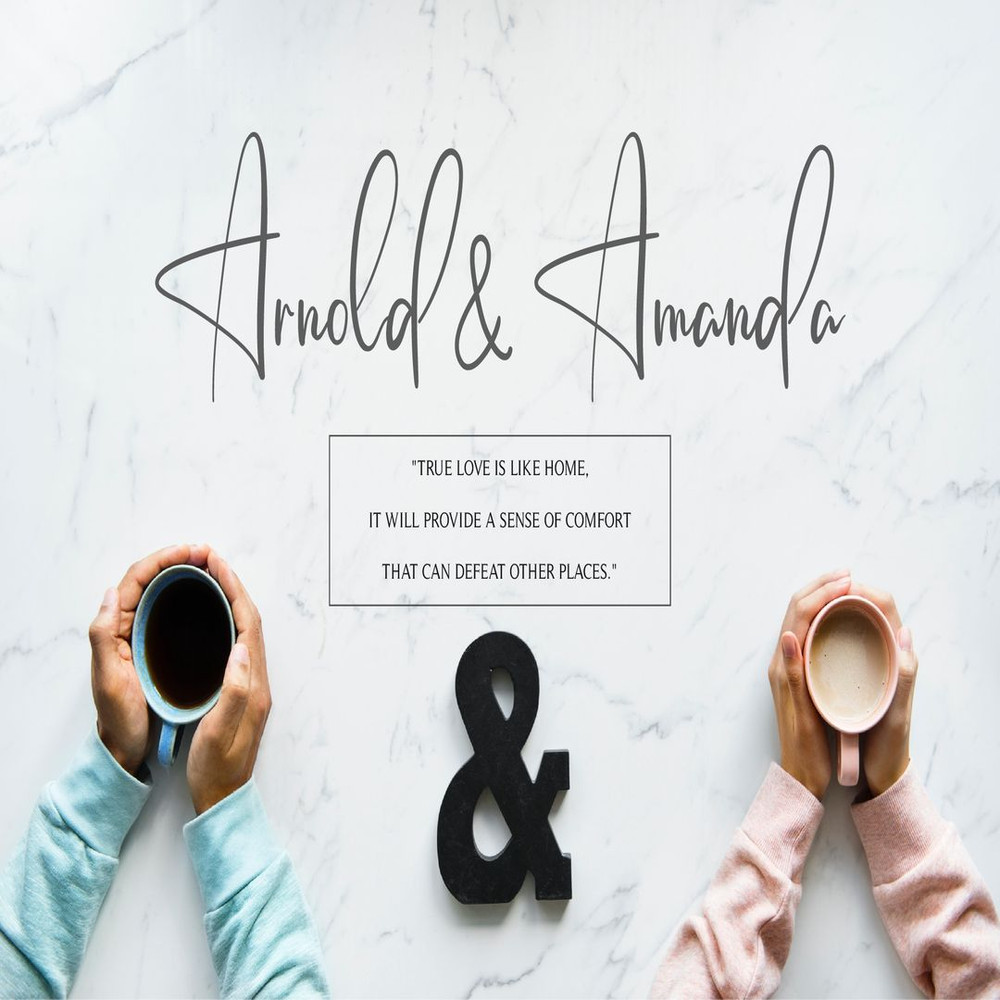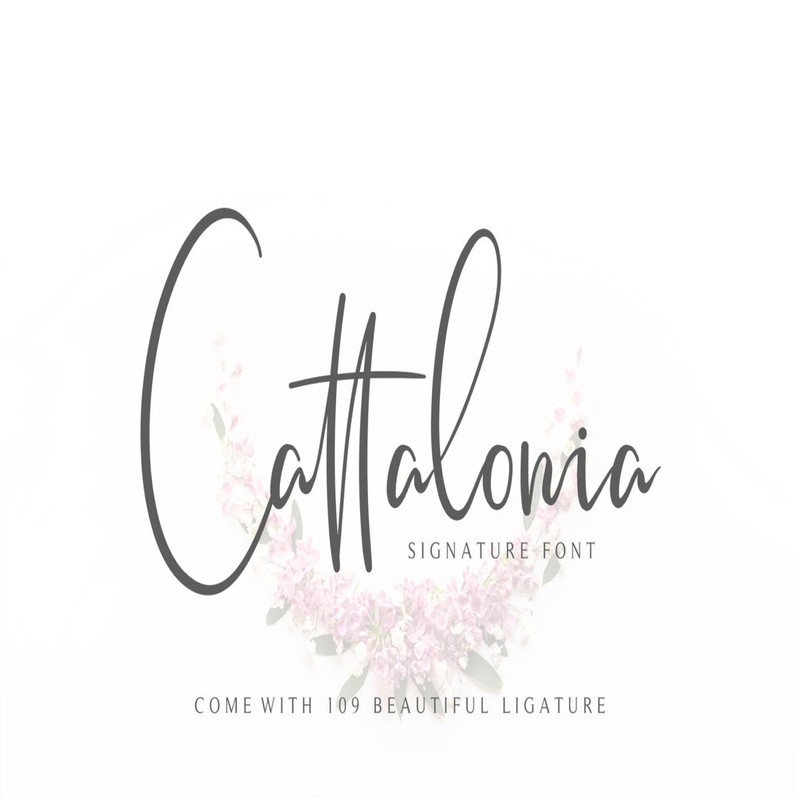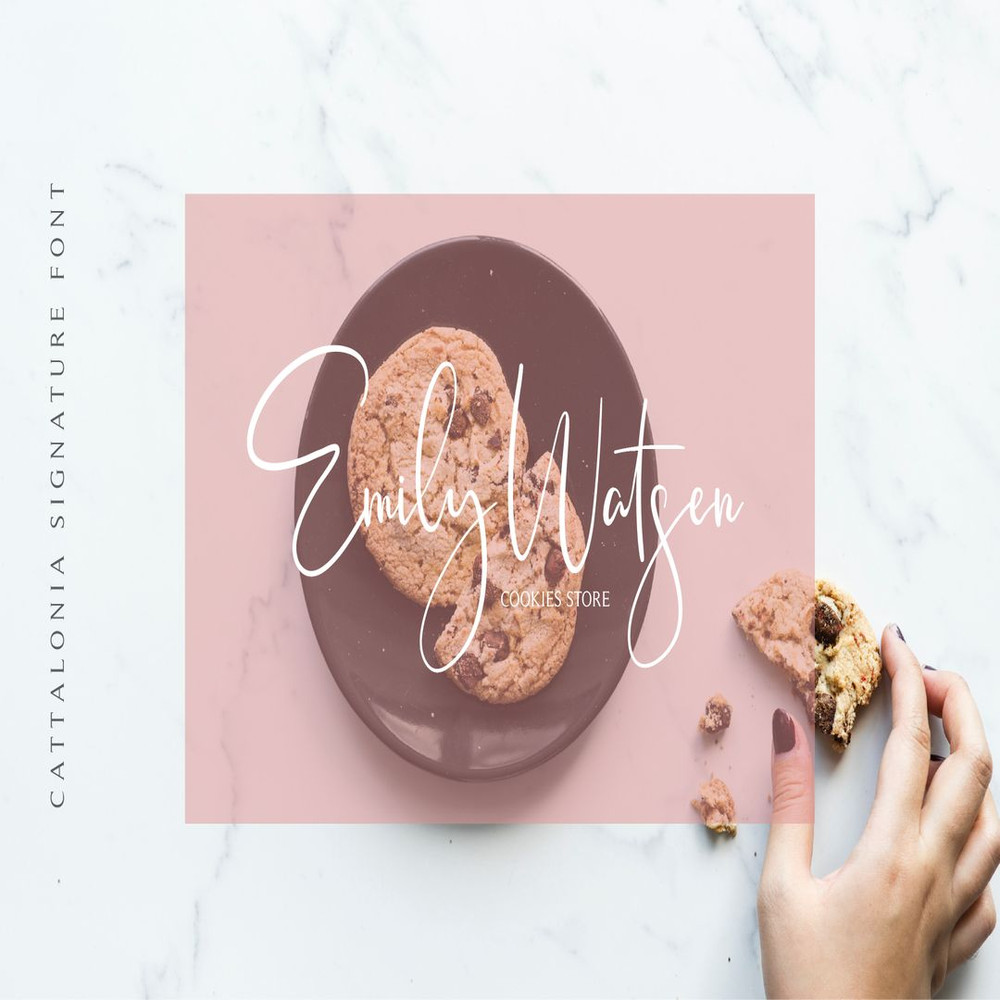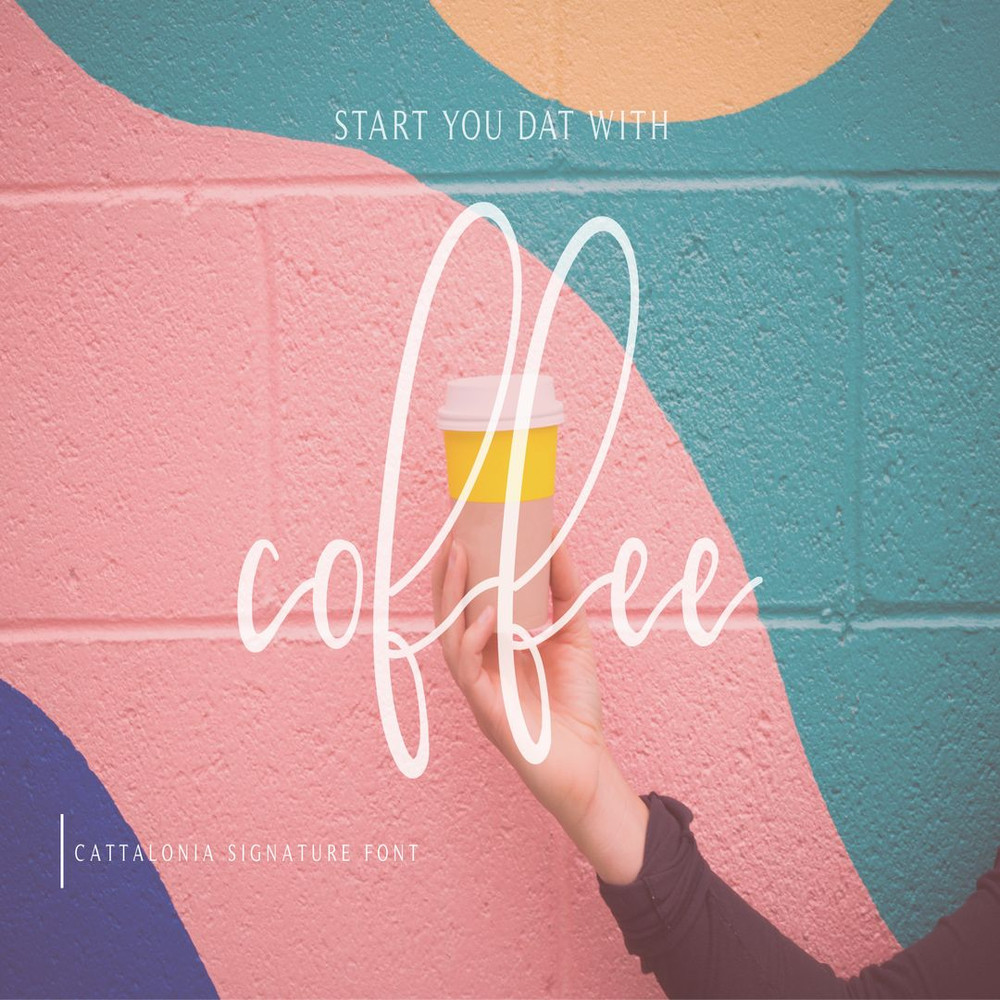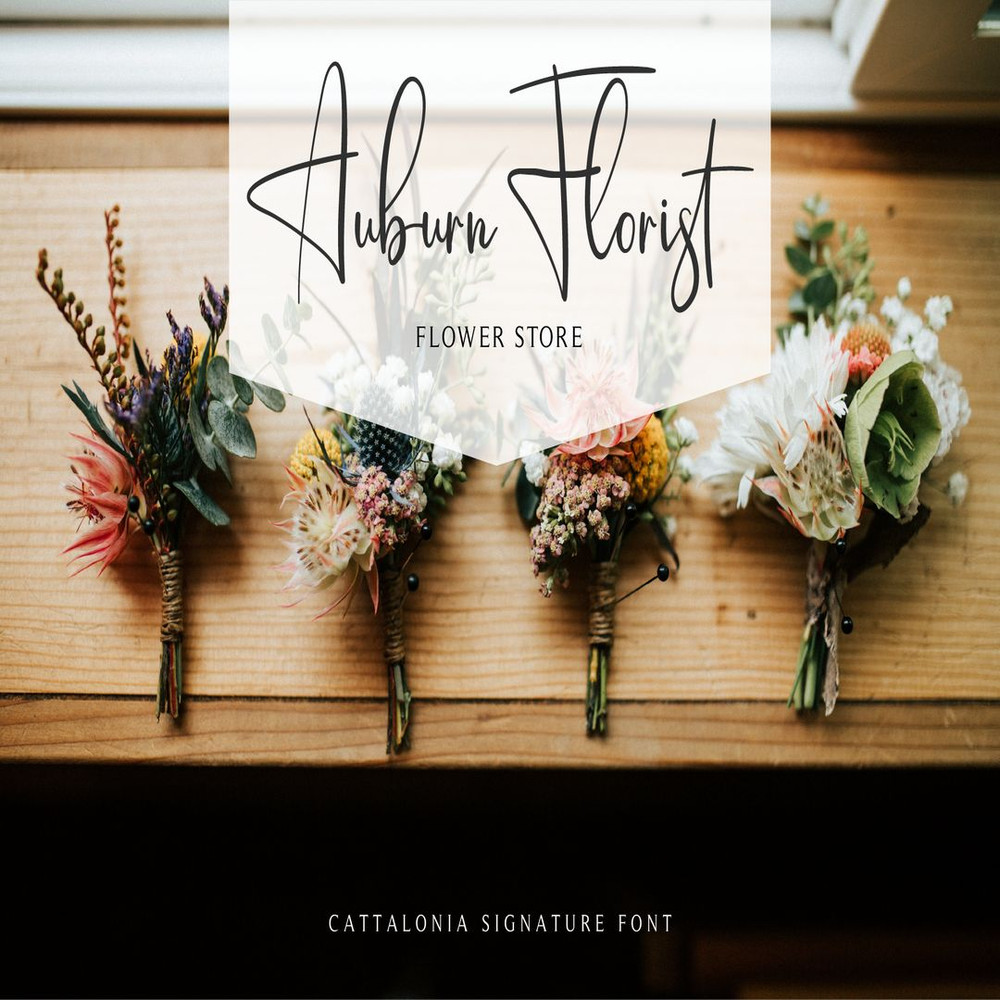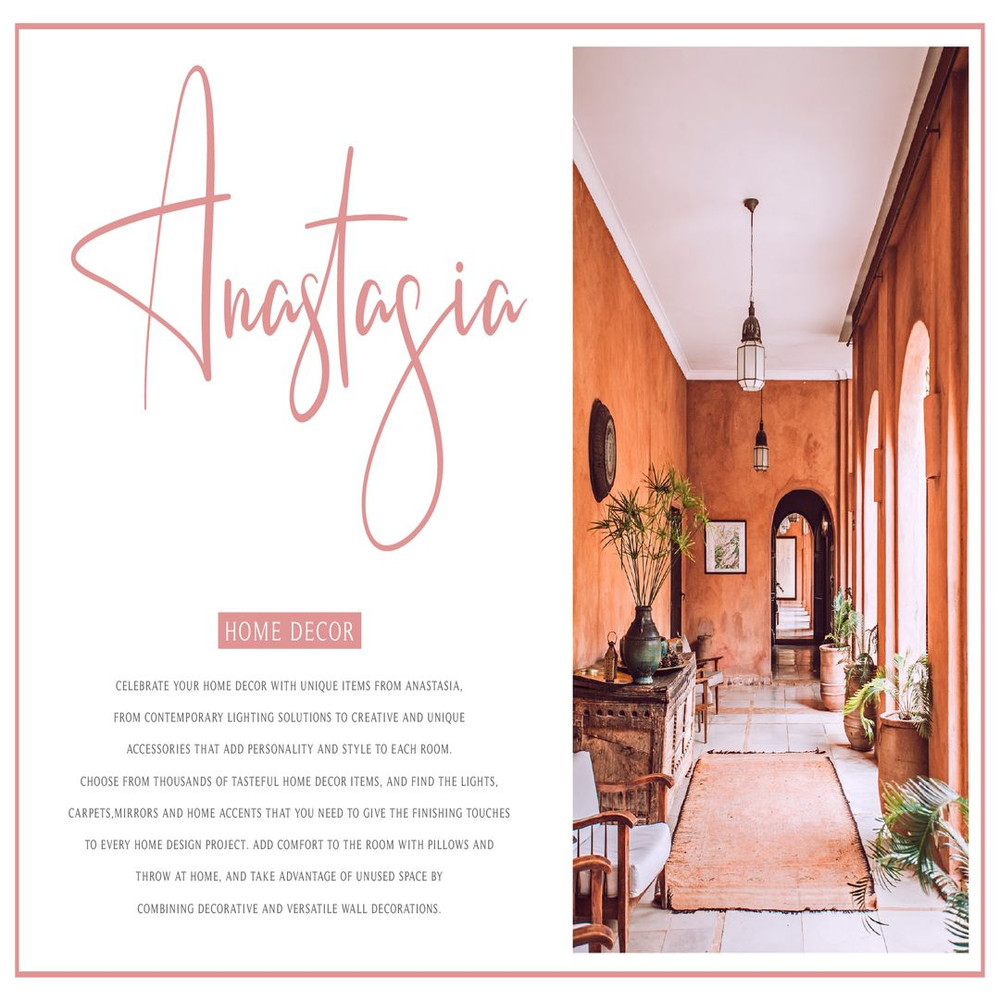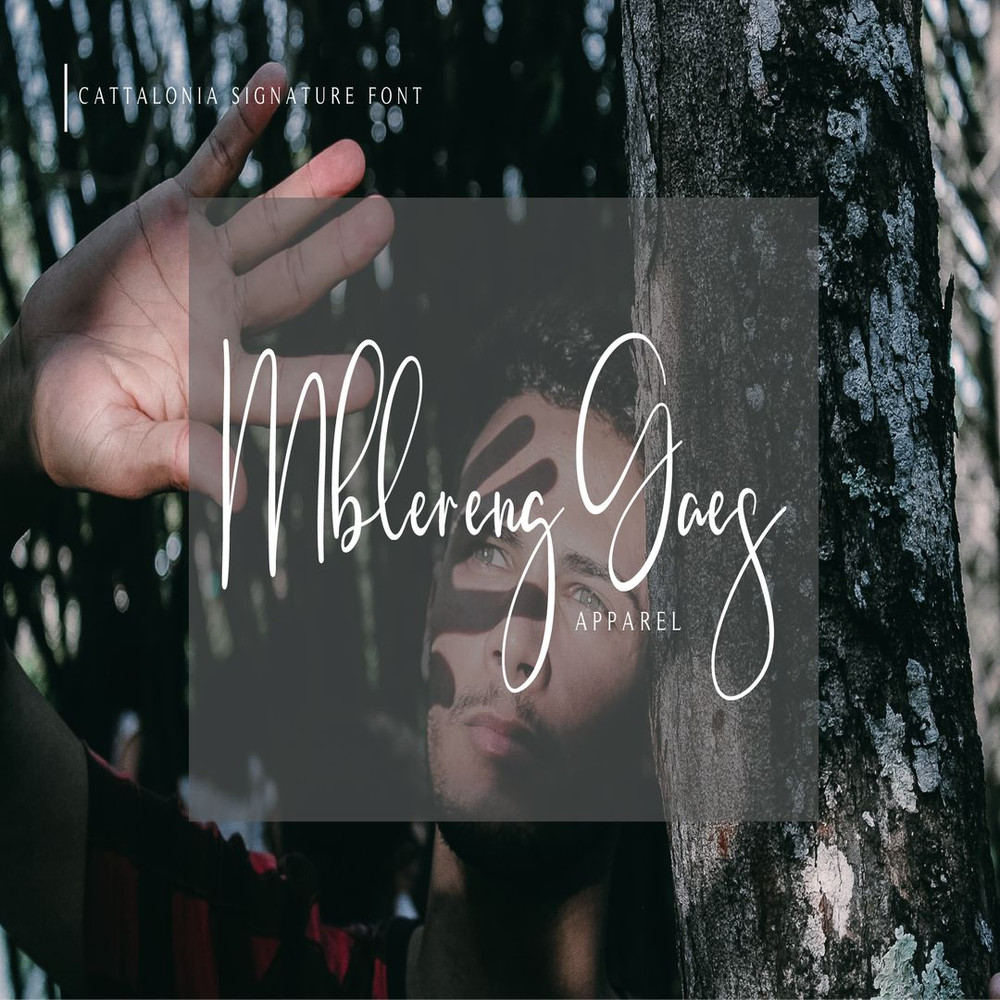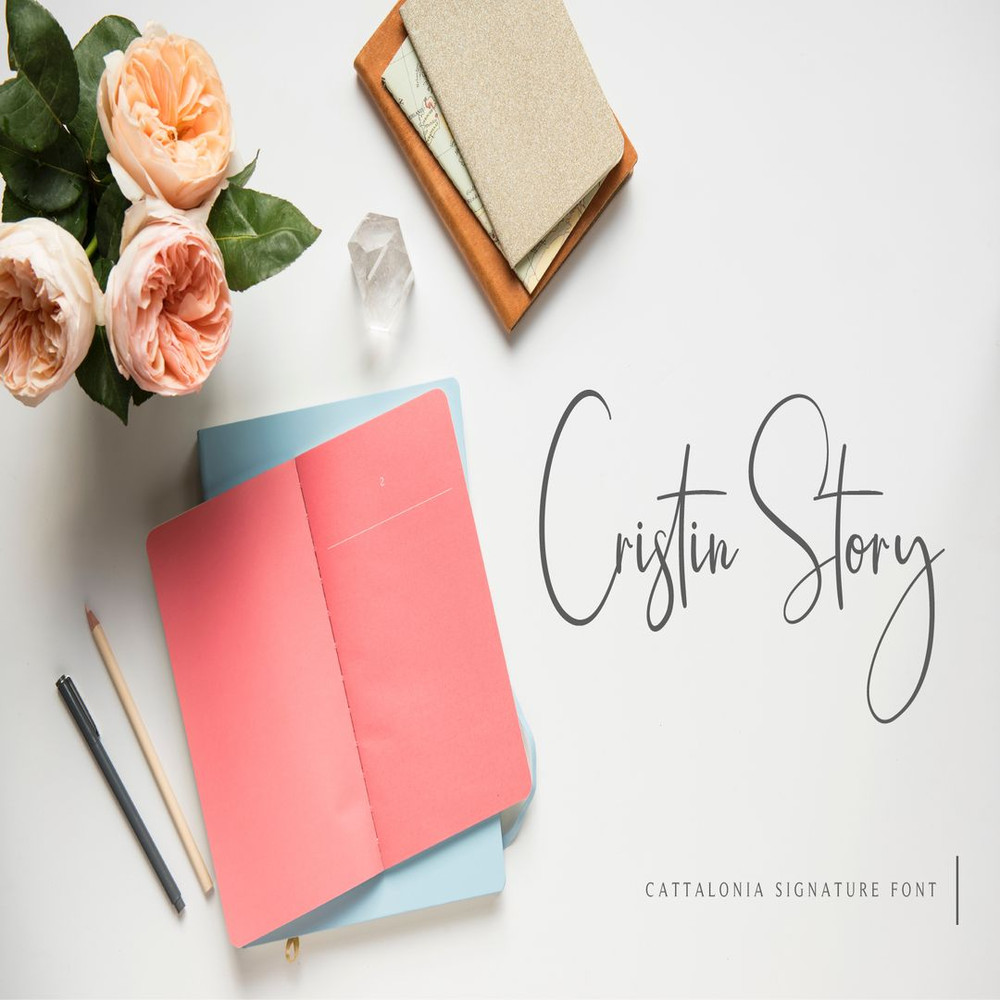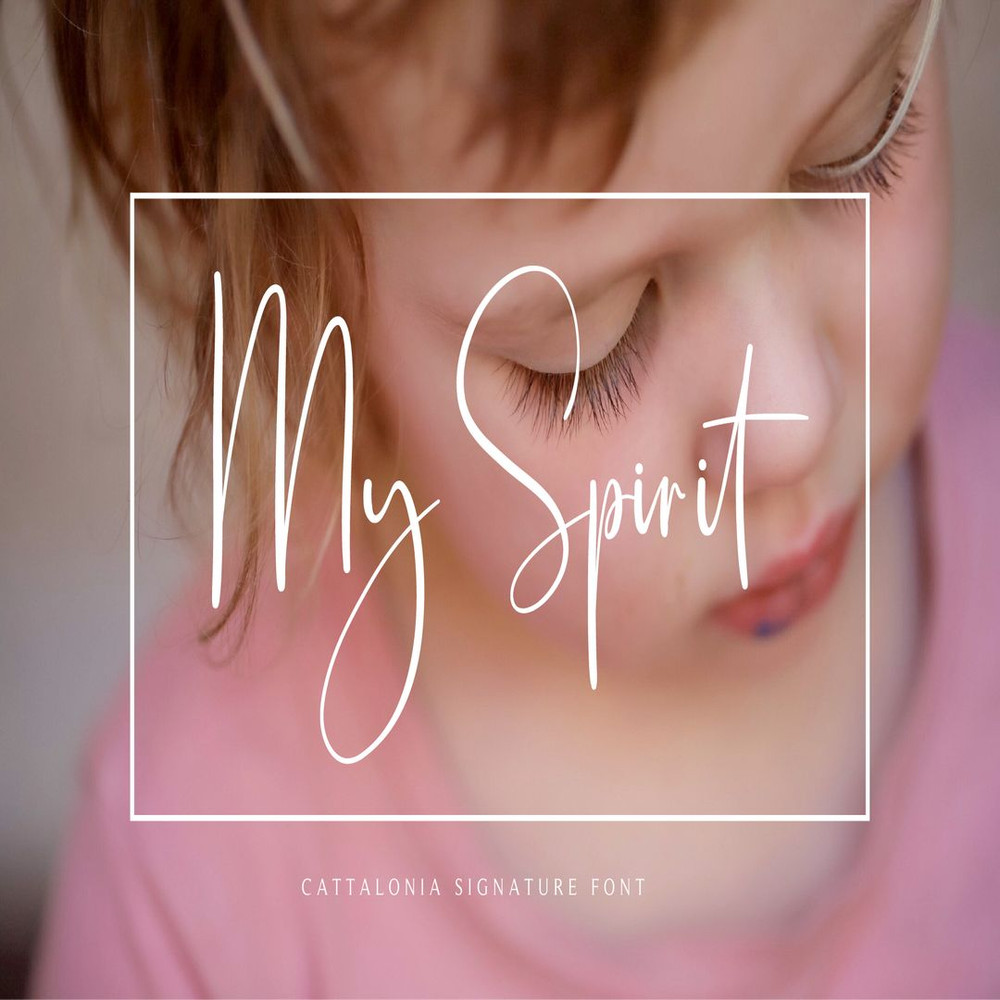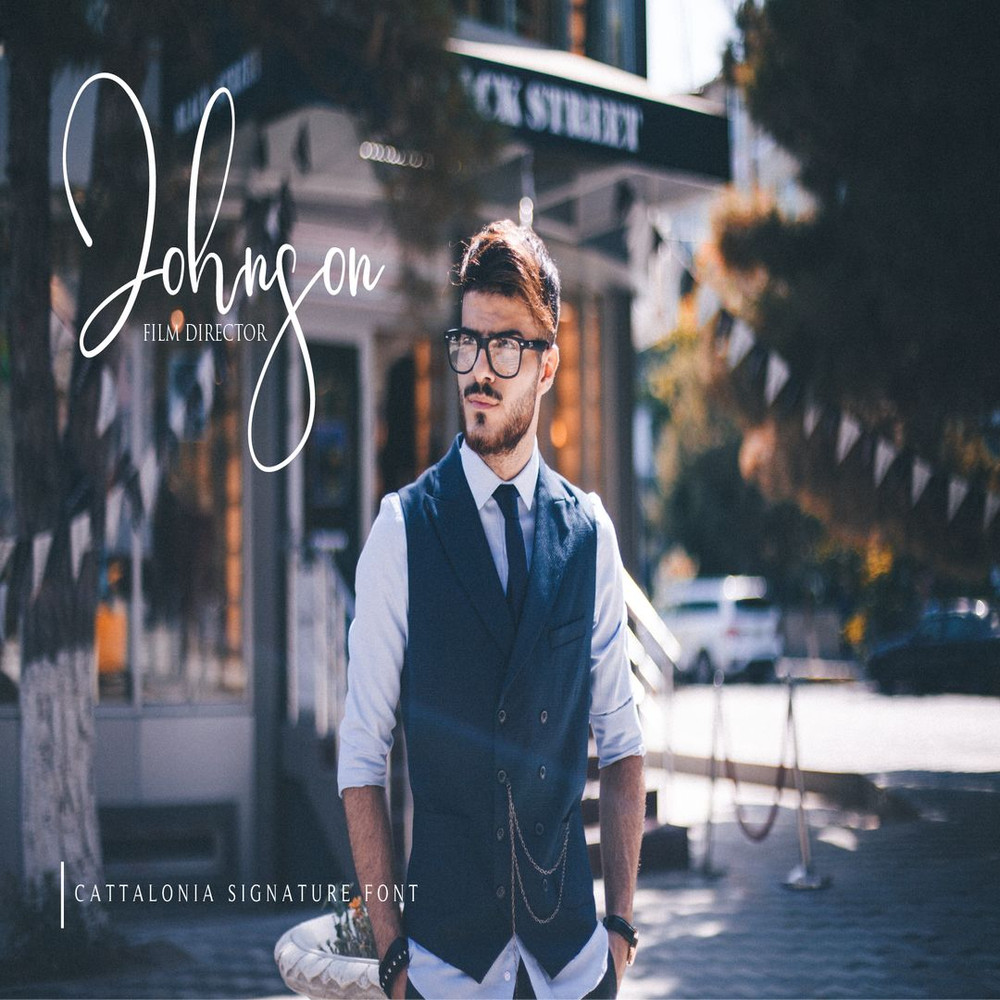
Cattalonia has a style signature with natural curves and shapes that can be used for various uses, such as watermarks, branding, logos or logo names, and much more. Cattalonia comes with 109 beautiful ligature, so it will be beautiful to use.
Here Is Cattalonia Ligature
Cattalonia Includes Capital and Lowercase Letters, and 109 Ligatures